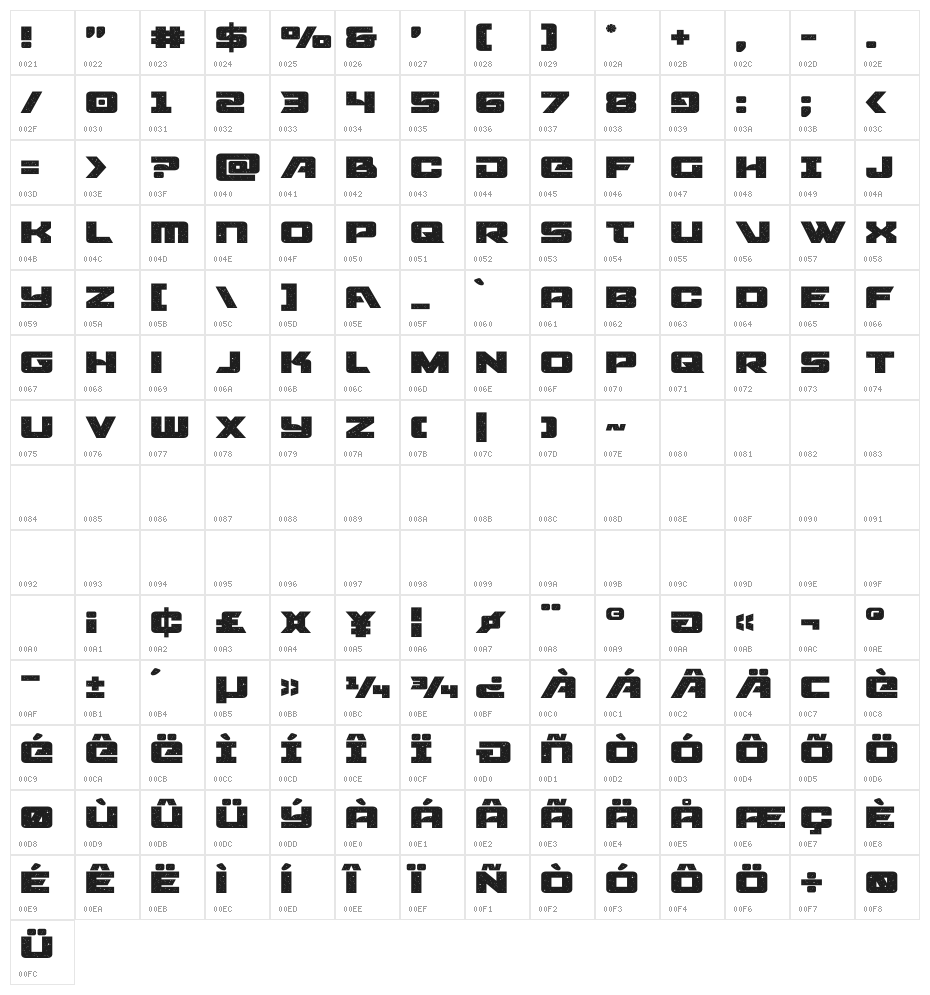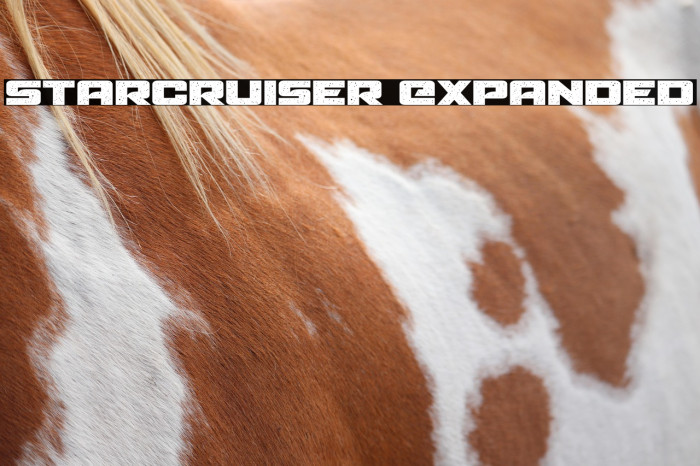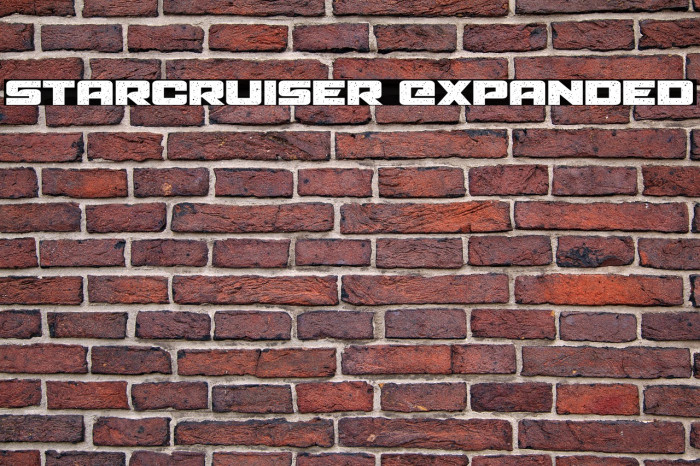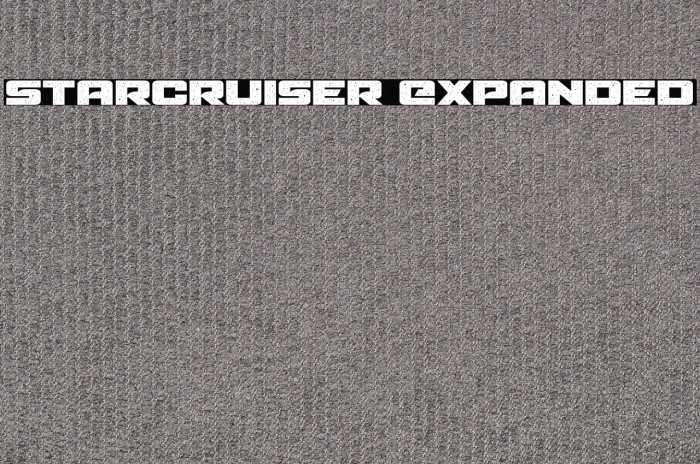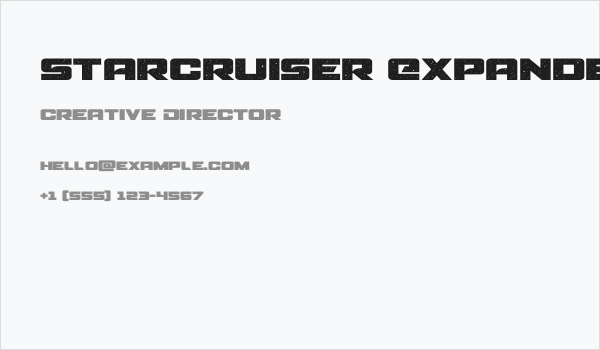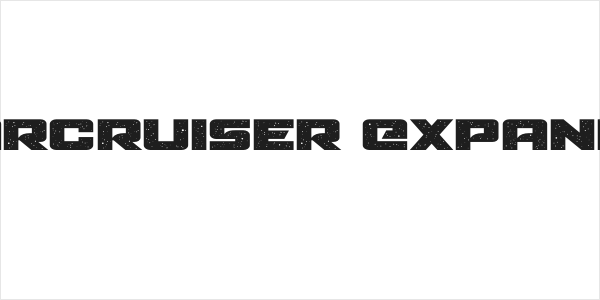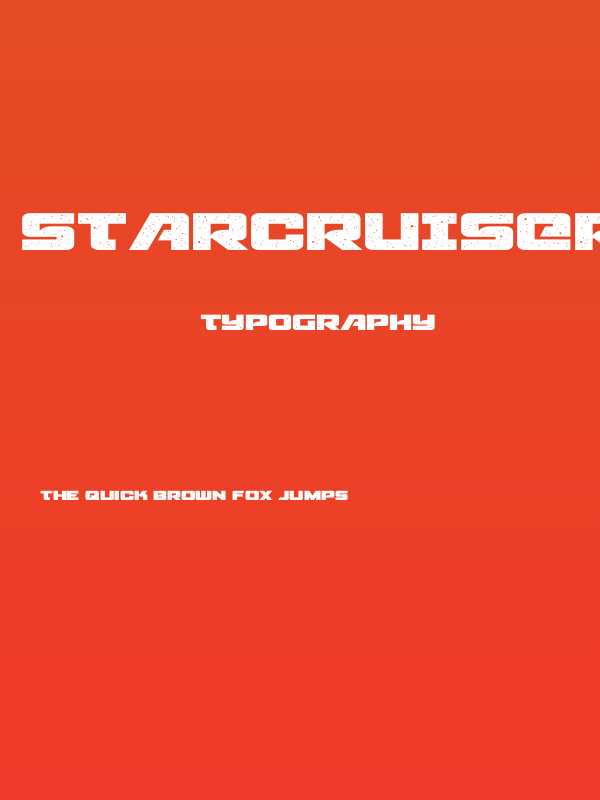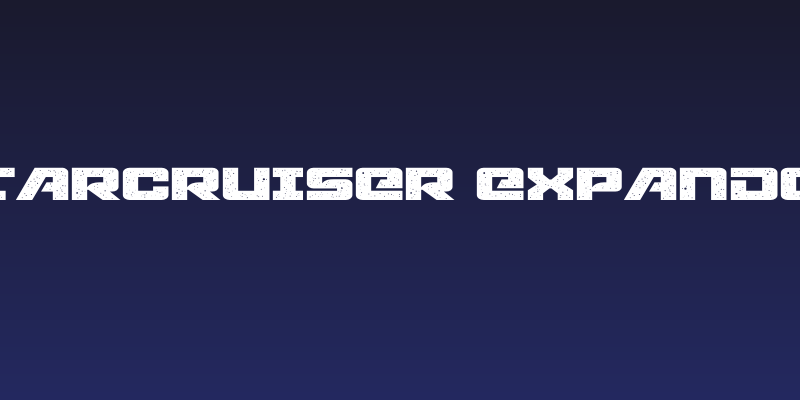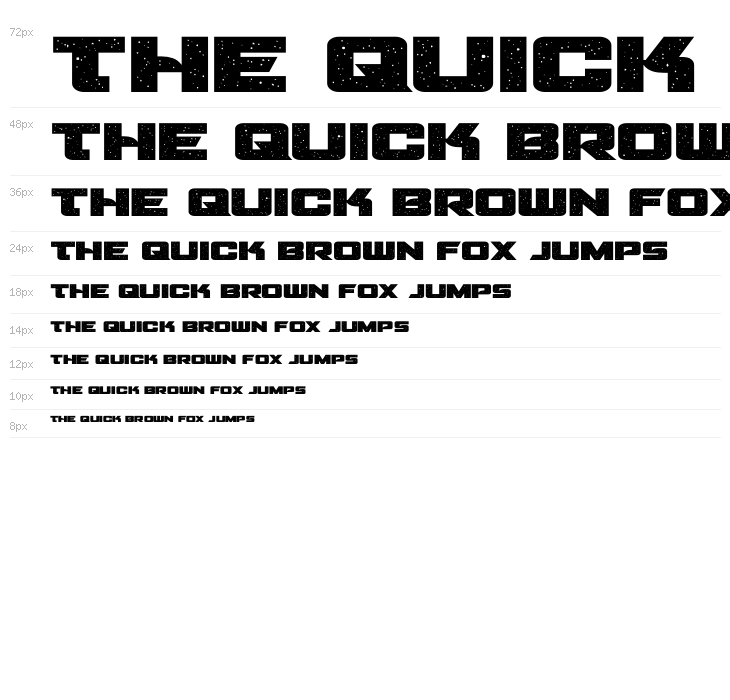
Starcruiser Expanded Font
Starcruiser Expanded Description
This font features a bold and futuristic design, characterized by its expanded and blocky letterforms. The letters are filled with a starry pattern, giving it a cosmic and space-themed appearance. The uppercase and lowercase letters maintain a consistent style, with sharp angles and geometric shapes. The numbers and special characters follow the same design principles, ensuring uniformity across all glyphs. This font is ideal for projects that require a sci-fi or outer space aesthetic, making it perfect for movie posters, video game titles, or themed event invitations.
| Width | Expanded |
| Overall Style | Futuristic |
| Proposed Projects | Ideal for sci-fi movie posters, video game titles, and themed event invitations. |